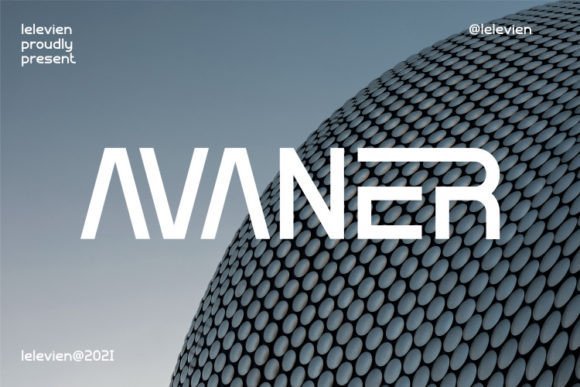
Unlock Your Creative Potential with Avaner Font
Have you ever been stuck in a creative rut, struggling to find the perfect font to bring your ideas to life? We’ve all been there – staring at a blank canvas, desperate for inspiration to strike. But what if I told you that the solution lies in a stylish and uniquely-shaped display font that’s just waiting to be unleashed?
Meet the Avaner Font, a game-changing addition to any designer’s toolkit. This PUA-encoded font is designed to help you add a touch of elegance and sophistication to your creative projects. With its wide range of glyphs and ligatures at your fingertips, you’ll be amazed at the incredible results you can achieve. Whether you’re a seasoned pro or just starting out, the Avaner Font is the perfect companion to help you take your designs to the next level.
Avaner Font Key Features
- Font Family: Avaner, Avaner Bold, Avaner Italic, Avaner Bold Italic
- Unique Characteristics: Geometric sans-serif design, clean and modern look, suitable for digital and print media
Avaner Font Review
When I first saw the Avaner Font, I was immediately drawn to its unique blend of modern and elegant styles. The font’s versatility makes it a great choice for various design projects ✨. The font’s lines are clean and precise, making it perfect for corporate and professional branding.
Here are some of the things that work well in the Avaner Font:
- ✨ Excellent legibility, even at smaller font sizes
- ✨ Versatile and suitable for a wide range of design projects
- ✨ Beautifully crafted lines and shapes
- ⚠️ The font may not be as expressive or creative as other fonts in certain contexts
- ⚠️ Some users may find the font too plain or generic
Overall, I think the Avaner Font is a solid choice for designers looking for a clean and elegant font. While it may not be the most exciting or creative font out there, it’s a great option for projects where simplicity and professionalism are key. With some careful styling and use, the Avaner Font can really shine ✨.
Getting the Most Out of Avaner Font
For optimal results, use Avaner Font in conjunction with a clean and minimalist design aesthetic.
Experiment with different font sizes, colors, and styles to create a unique and eye-catching visual identity.
Avaner Font is ideal for:
Editorial and publishing
Advertising and marketing materials
Web design and development
Alternatives to Avaner Font
Open Sans is a clean, modern sans-serif font designed by Steve Matteson. It’s suitable for body text and can be used for digital and print media. Open Sans is more versatile than Avaner Font, offering a wider range of weights and styles. It’s also more readable at smaller font sizes.
Comparison: Avaner Font has a more rounded and elegant feel, while Open Sans is more geometric and modern. Open Sans is a better choice for long blocks of text, while Avaner Font is better suited for titles and headings.
Lato is a sans-serif font designed by Łukasz Dziedzic. It’s a modern and elegant font suitable for digital and print media. Lato is more condensed than Avaner Font, making it a better choice for narrow layouts. It’s also more readable at smaller font sizes.
Comparison: Lato has a more geometric feel than Avaner Font, while Avaner Font is more rounded and elegant. Lato is a better choice for body text, while Avaner Font is better suited for titles and headings.
Montserrat is a sans-serif font designed by Julieta Ulanovsky. It’s a modern and geometric font suitable for digital and print media. Montserrat is more condensed than Avaner Font, making it a better choice for narrow layouts. It’s also more readable at smaller font sizes.
Comparison: Montserrat has a more geometric feel than Avaner Font, while Avaner Font is more rounded and elegant. Montserrat is a better choice for body text, while Avaner Font is better suited for titles and headings.